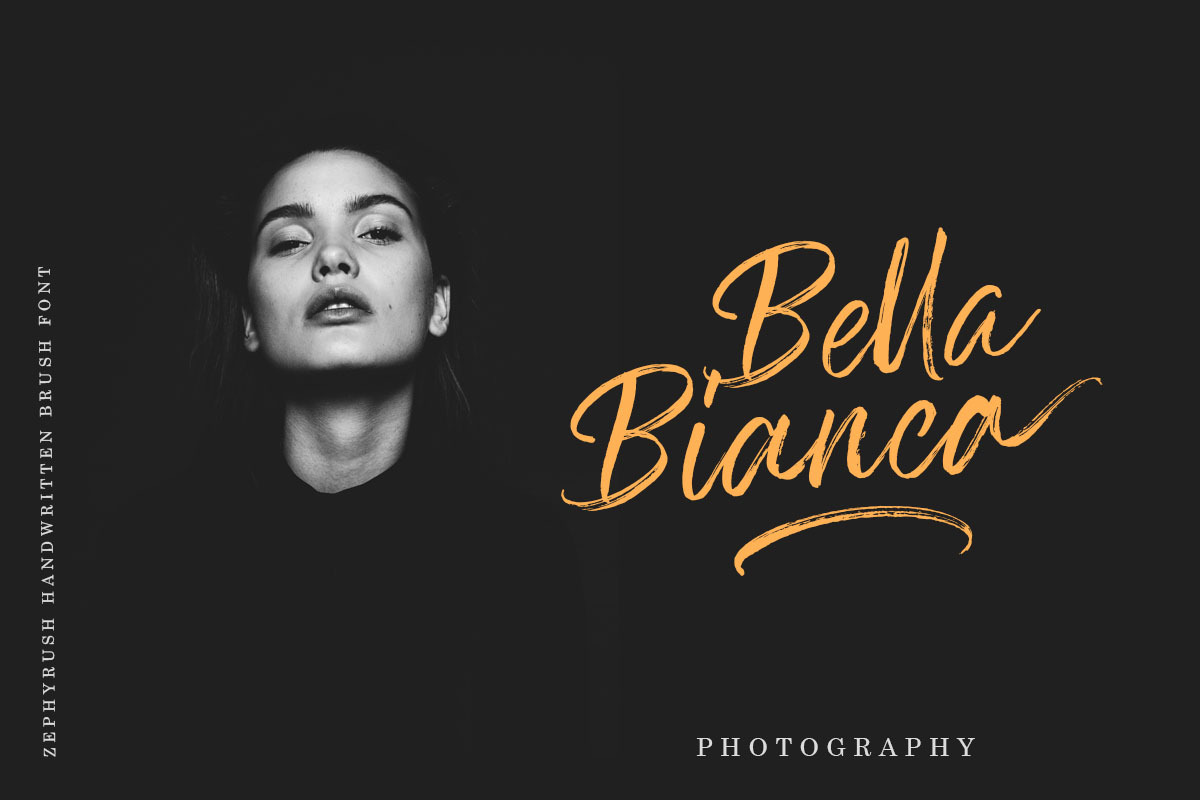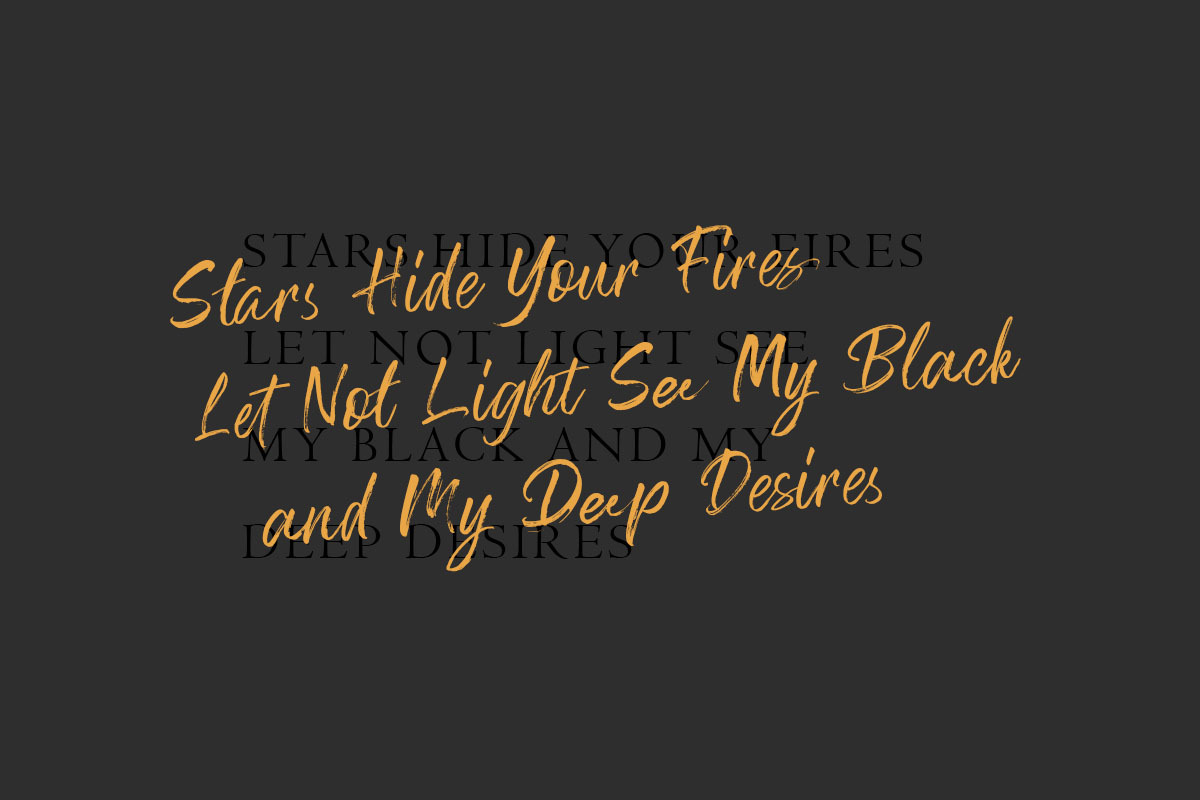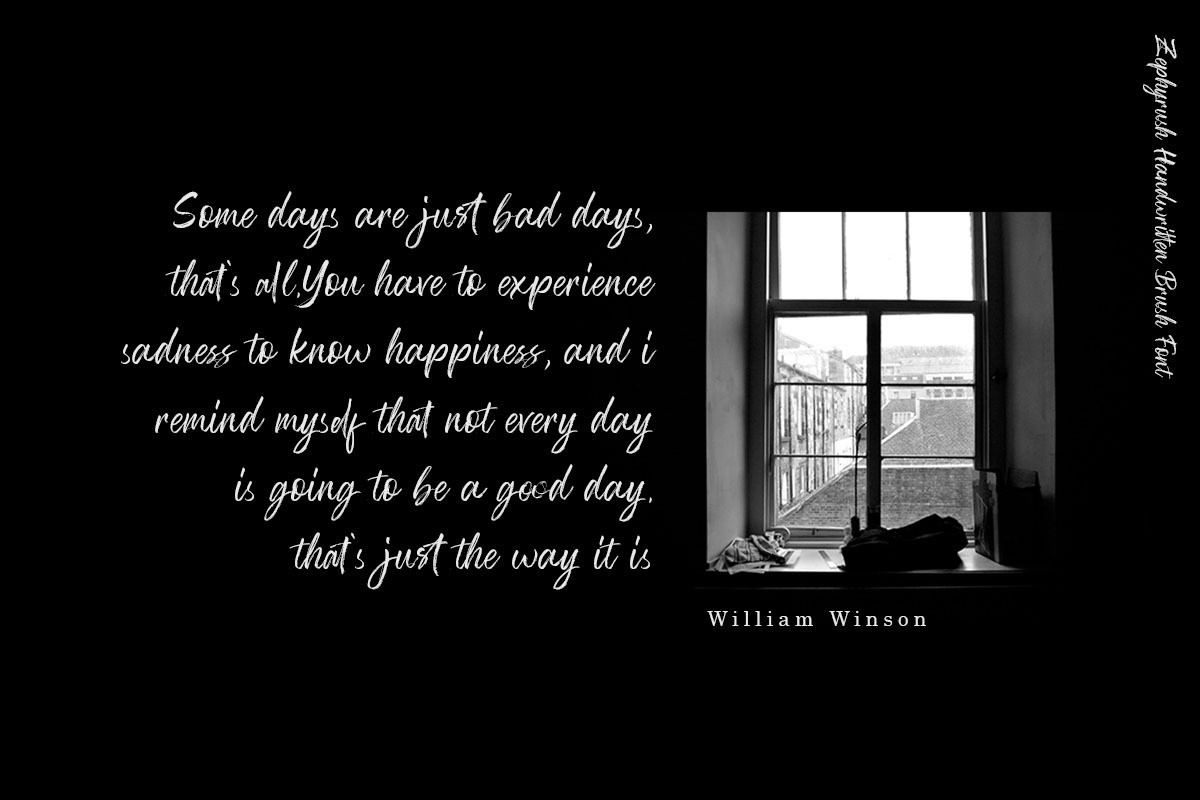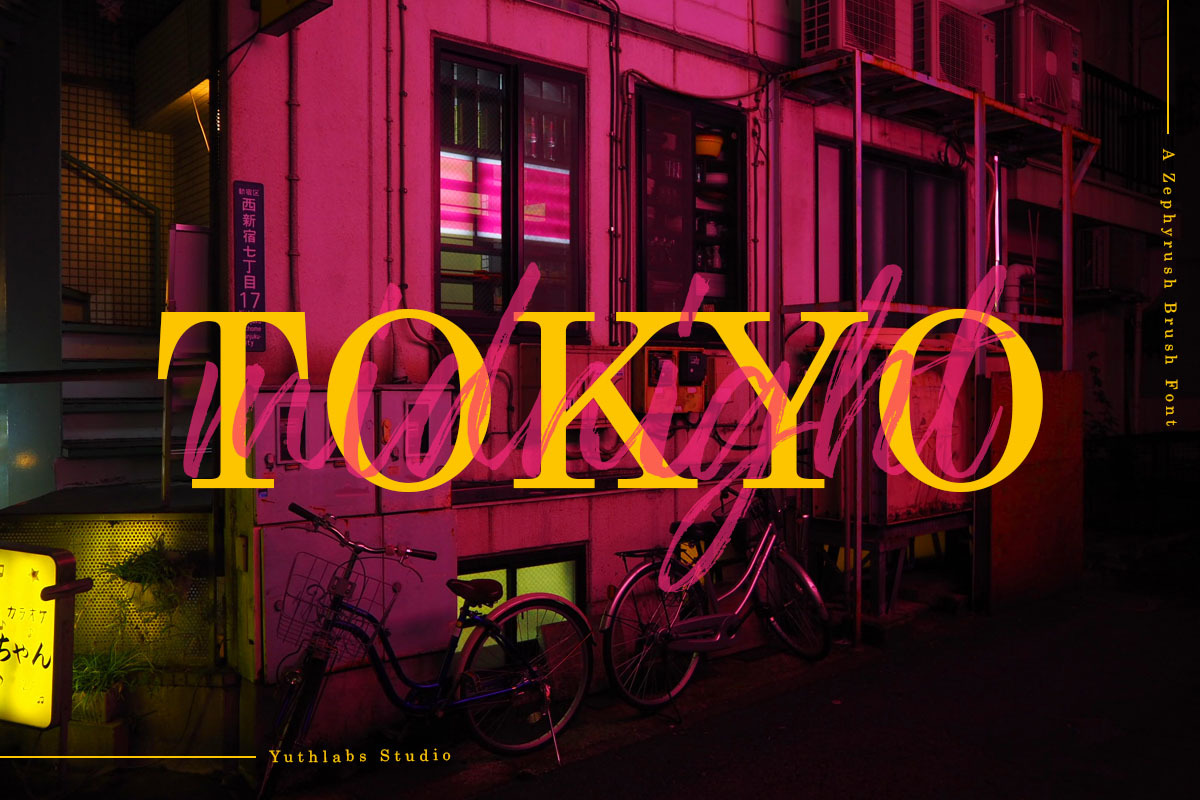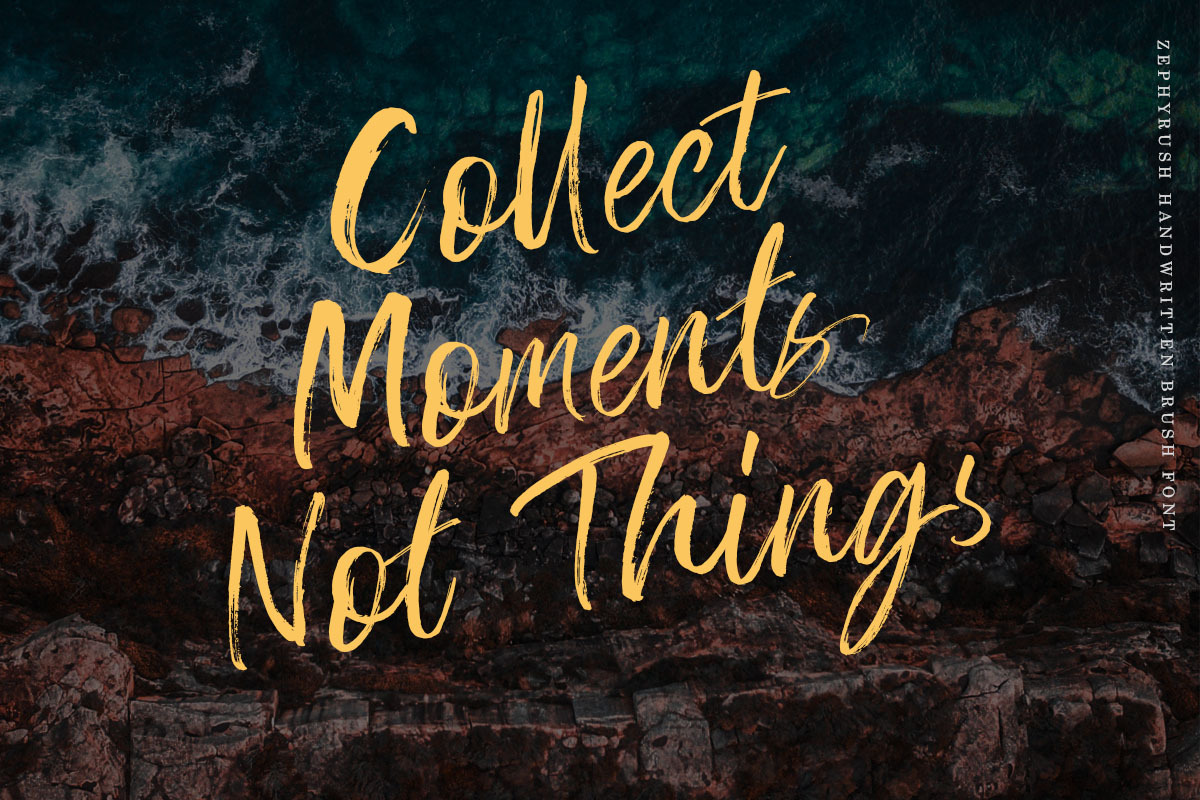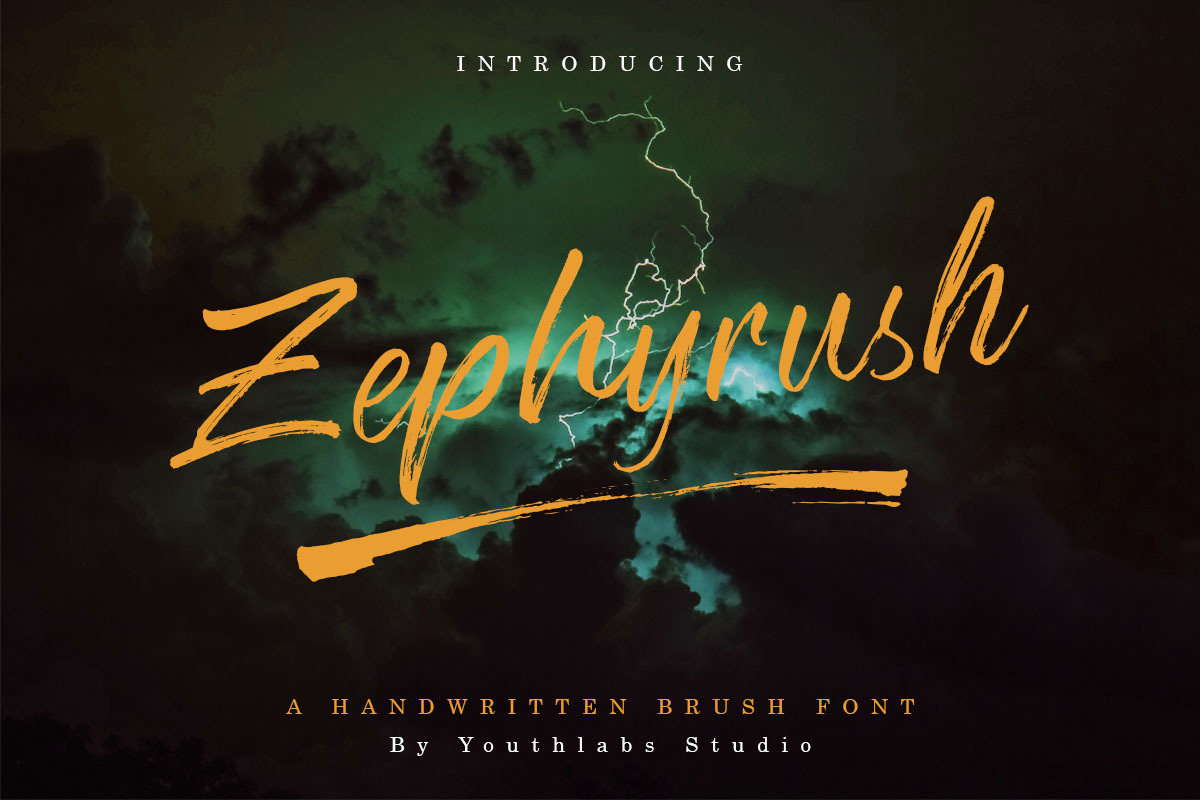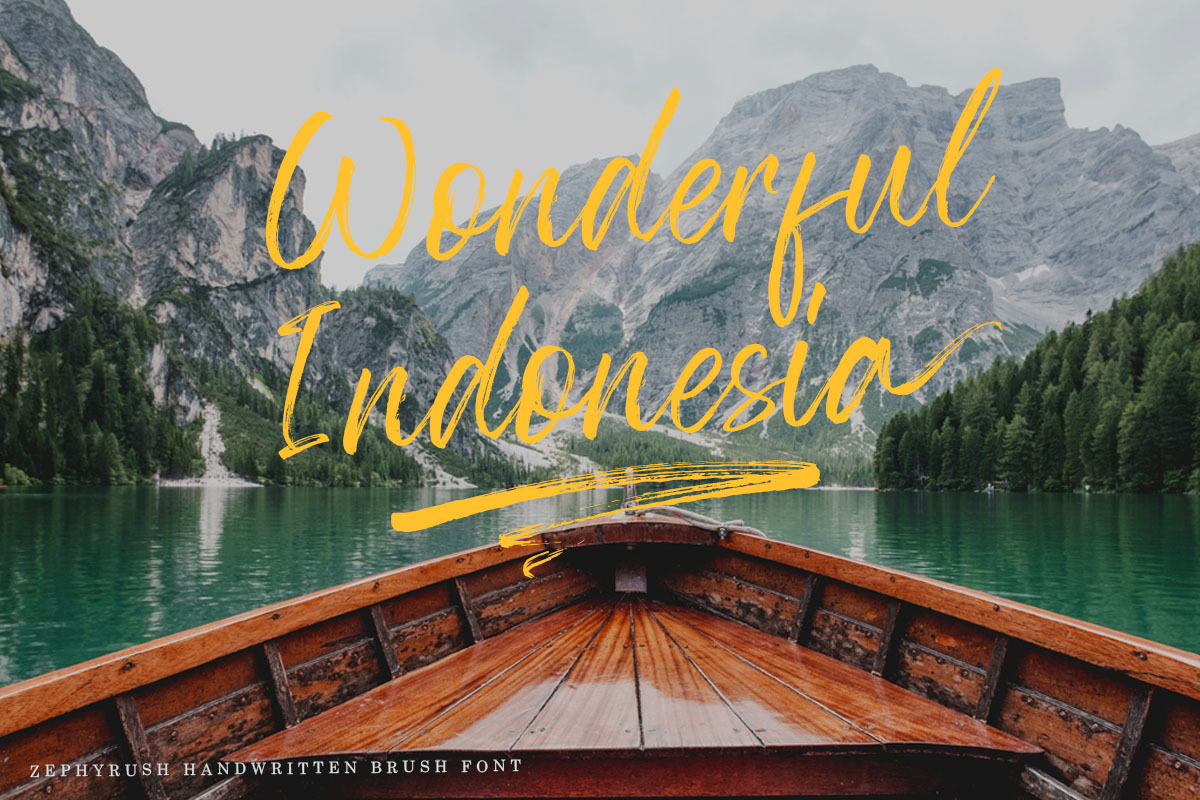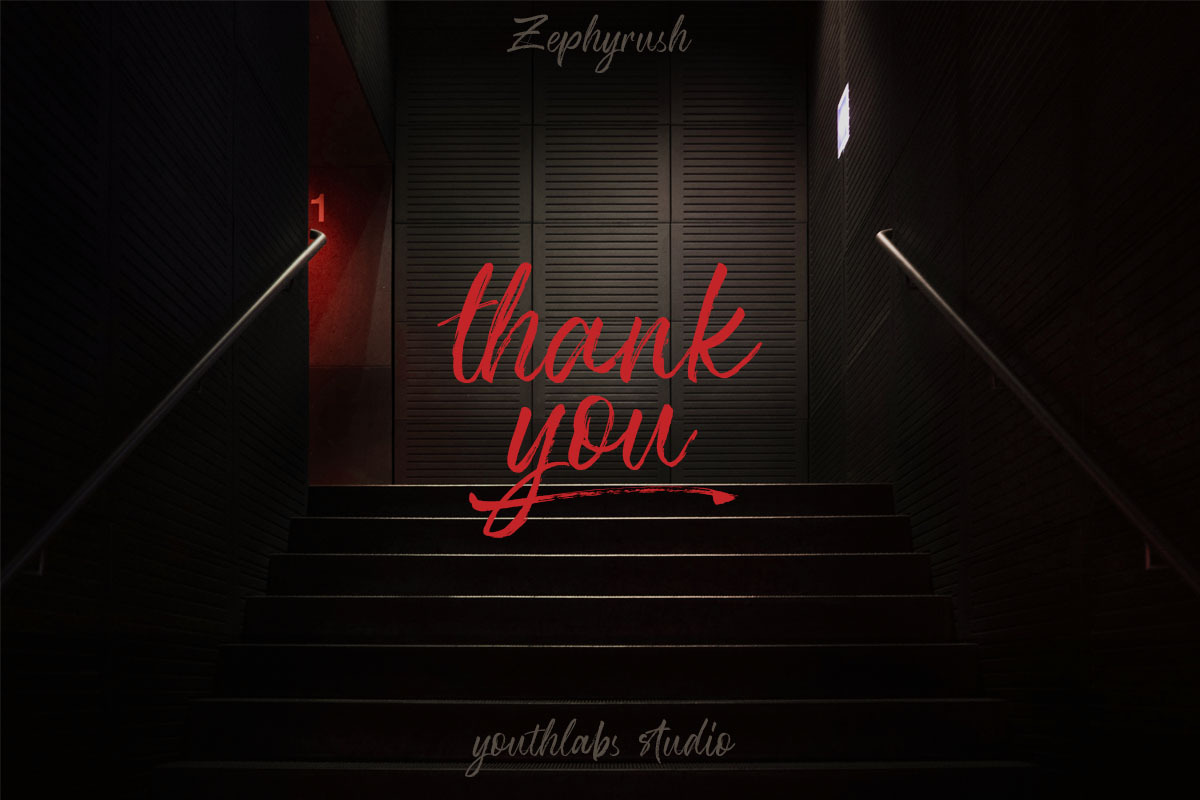
Zephyrush Handwritten Brush Font
Proudly Zephyrush Handwritten Brush Font with real brushes texture
Zephyrush Handwritten Font can be use for various project such as photography, watermark, social media posts, advertisements, logos & branding, invitation, product designs, label, stationery, wedding designs, product packaging, special events or anything that need handwriting taste
What's the Feature ?
- Alternate Uppercase
- Alternate Lowercase